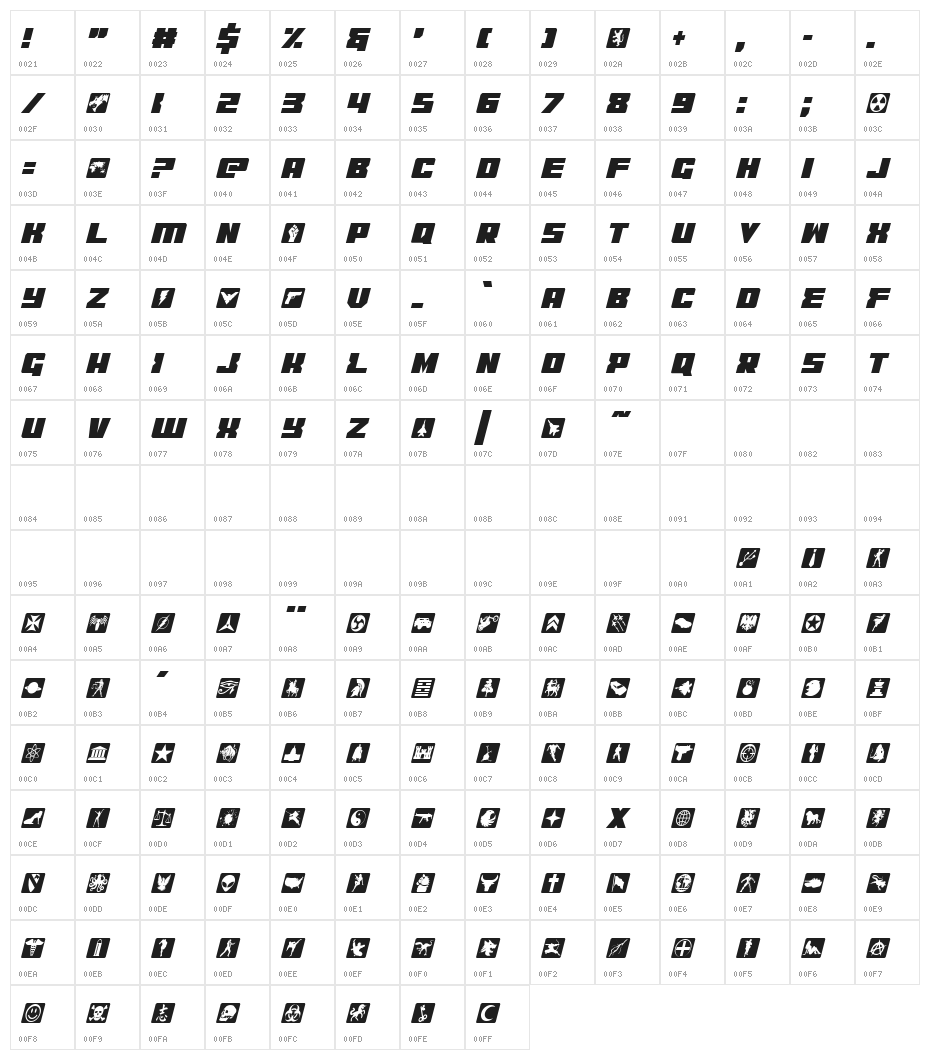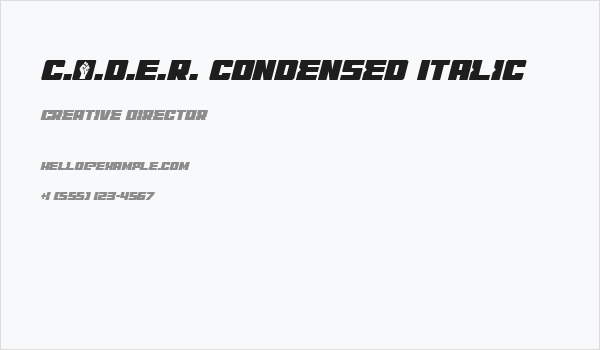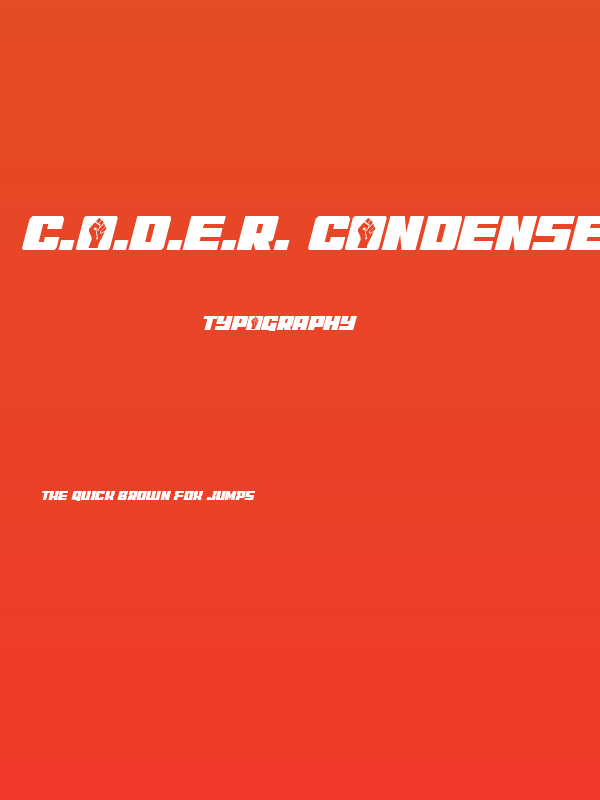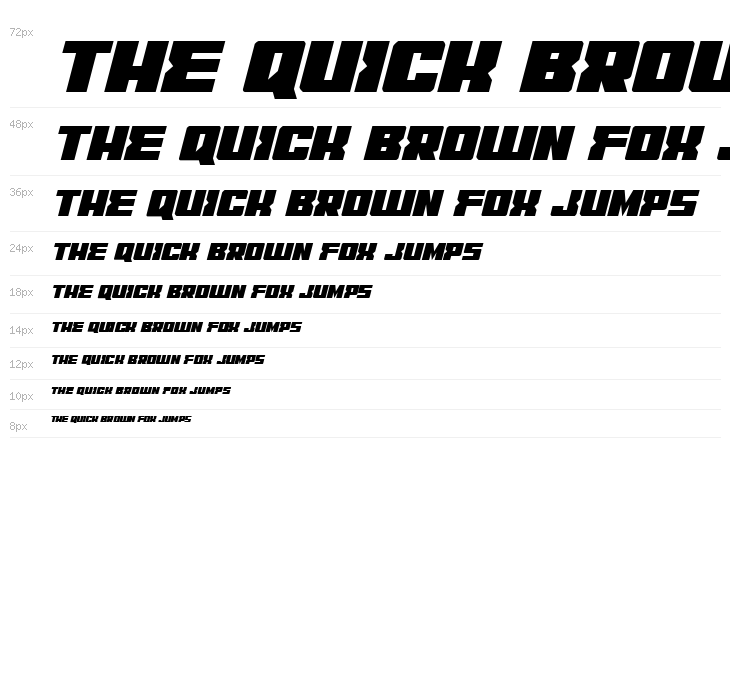
C.O.D.E.R. Condensed Italic Font
C.O.D.E.R. Condensed Italic Description
This font features a bold and dynamic style with a condensed and italicized form. The characters exhibit a strong geometric influence, with sharp angles and a blocky appearance that conveys a sense of power and modernity. The uppercase letters are particularly striking, with a uniform height and width that enhances readability while maintaining a distinct visual impact. The lowercase letters follow the same design principles, ensuring consistency throughout the typeface. Numbers and special characters are designed to match the boldness of the alphabet, making them suitable for various applications. The overall design is sleek and contemporary, ideal for projects that require a strong visual presence.